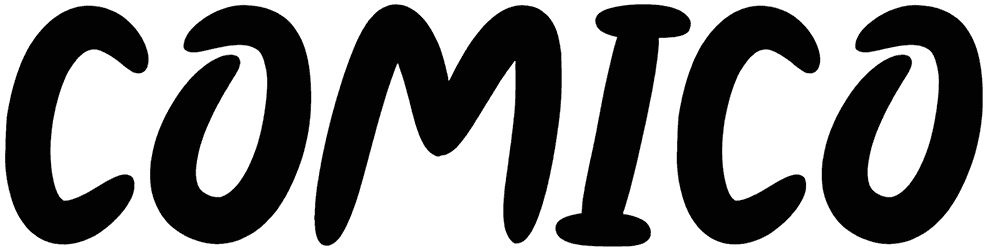
Comico Font
Comico could save the day if you’re in charge of a kid-friendly project. This comic font is great for a header of print and digital designs because of its offer of uppercase letters, without compromising its impact when used in large sizes.
Its humorous appearance makes this all-caps font ideal for use in artwork with a cutesy tone, such as book covers, movie titles, video games, and more. Our online font collection contains a large selection for your perusal.